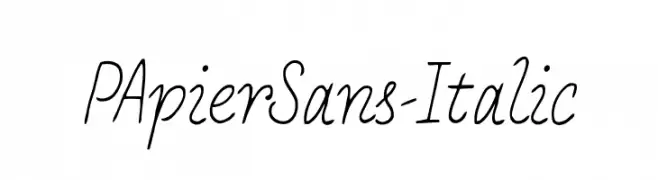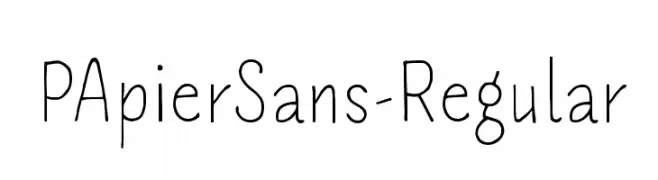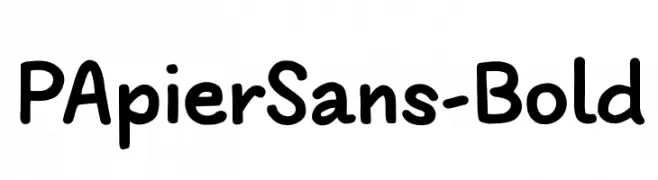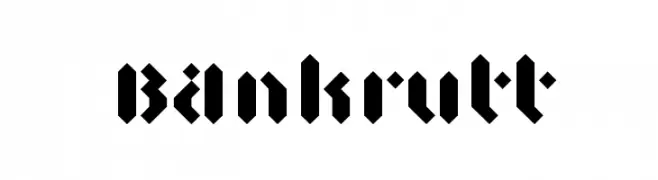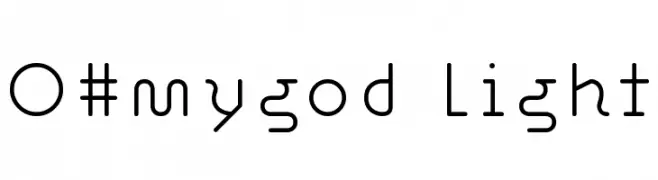
A fluid, elegant script font with an italic, handwritten style.
A playful, handwritten font with irregular strokes and a casual style.
A playful, bold font with rounded edges and a hand-drawn feel.
A bold, geometric font with a digital, futuristic style.
A bold, geometric font with sharp angles and a modern, edgy style.
A bold, geometric, and decorative font with unique cut-out designs.
A bold, geometric font with a strong, industrial presence.
A bold blackletter font with sharp, angular lines and high contrast.
A bold, impactful font with strong strokes and high contrast.
A playful and quirky font with unique twists and modern flair.